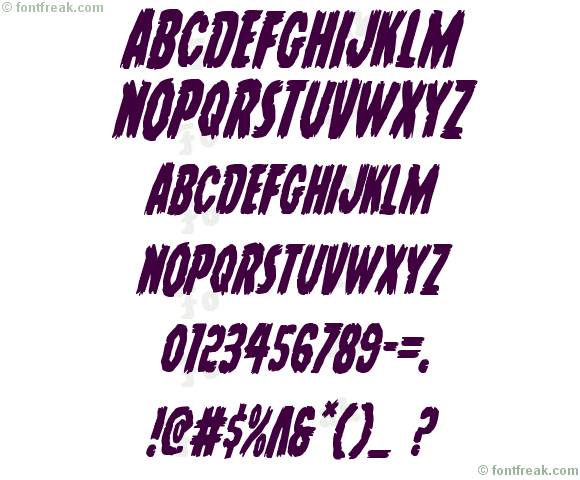
Young Frankenstein Condensed Italic
The Young Frankenstein Condensed Italic font, designed by Daniel Zadorozny, is a striking display typeface that captures the essence of playful horror inspired by classic cinema. This font belongs to the decorative category, characterized by its bold, condensed letterforms and an italic slant that adds a dynamic flair. The stroke weight is robust, offering a strong presence, while the sharp edges and jagged detailing evoke a sense of whimsical spookiness. The spacing is tight, which enhances its impact, making it suitable for attention-grabbing applications.
This font is perfect for a variety of specific use cases. It shines in movie posters, particularly those themed around horror or comedy, where its dramatic flair can effectively convey the film's tone. Additionally, it works wonderfully for Halloween event promotions, providing an eye-catching and festive feel. The Young Frankenstein Condensed Italic font is also an excellent choice for themed party invitations that aim for a fun yet eerie atmosphere. Small business owners in the entertainment or novelty sectors can leverage this font for merchandise branding, ensuring their products stand out on shelves.
What sets the Young Frankenstein Condensed Italic font apart is its unique combination of playfulness and spookiness, making it a standout choice for projects that strive to capture attention. With its distinctive character, it offers a memorable visual experience, ensuring that your designs leave a lasting impression. For those interested, the Young Frankenstein Condensed Italic font free download is readily available, inviting you to explore its creative potential.